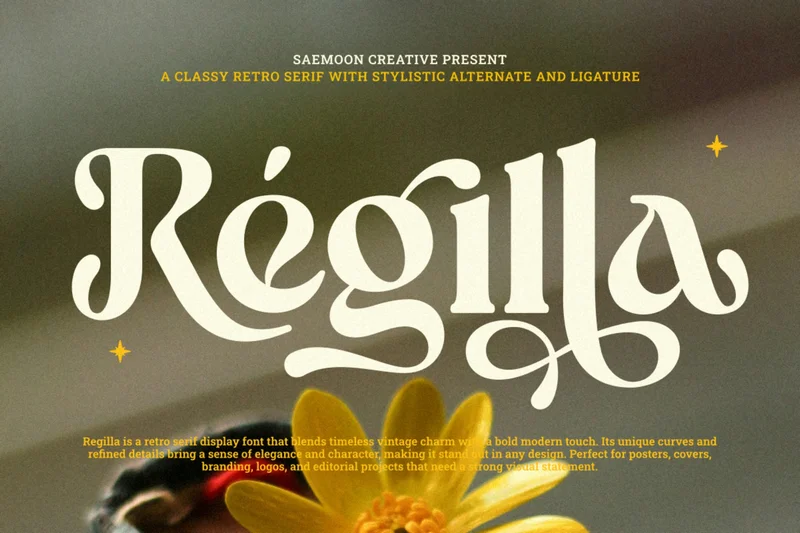
Regilla
Regilla is a retro serif display font that combines timeless vintage charm with a bold modern twist. Its unique curves and refined details create a strong yet elegant character, making it perfect for captivating headlines, stylish logos, branding, posters, packaging, and editorial designs. Regilla strikes the right balance between classic sophistication and contemporary appeal, bringing a distinctive touch to any creative project.